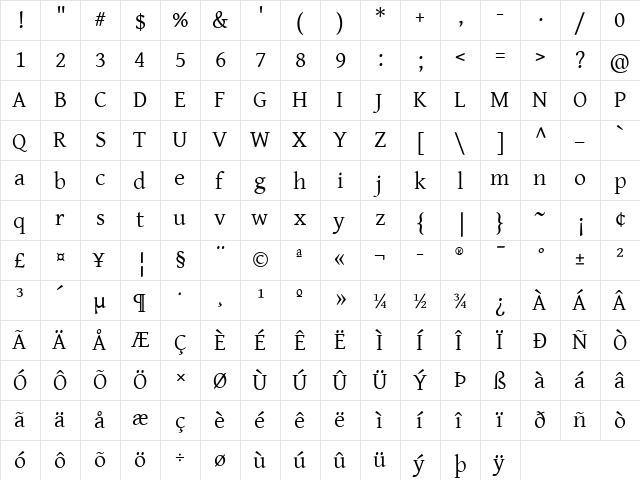
GentiumAlt Regular
| Designer | J. Victor Gaultney |
Design Context for GentiumAlt Typeface
GentiumAlt is a composed and adaptable typeface that performs quietly and consistently across a wide range of design contexts.